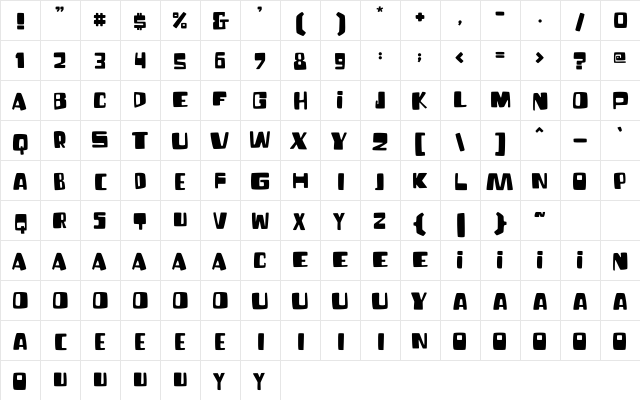
Fun Blob Regular
| Foundry | TKK Studio |
| Designer | Sahirul |
Design Context for Fun Blob Typeface
Fun Blob trades formality for fun, with bouncy, characterful letterforms that bring warmth and energy to any project.
Font Pairing: Pairs well with a rounded or humanist sans for body copy, maintaining the friendly tone without relying on Fun Blob to carry extended reading.
Pro Tip: Avoid using Fun Blob for long passages of text — it works best for headlines, labels, and short calls to action.